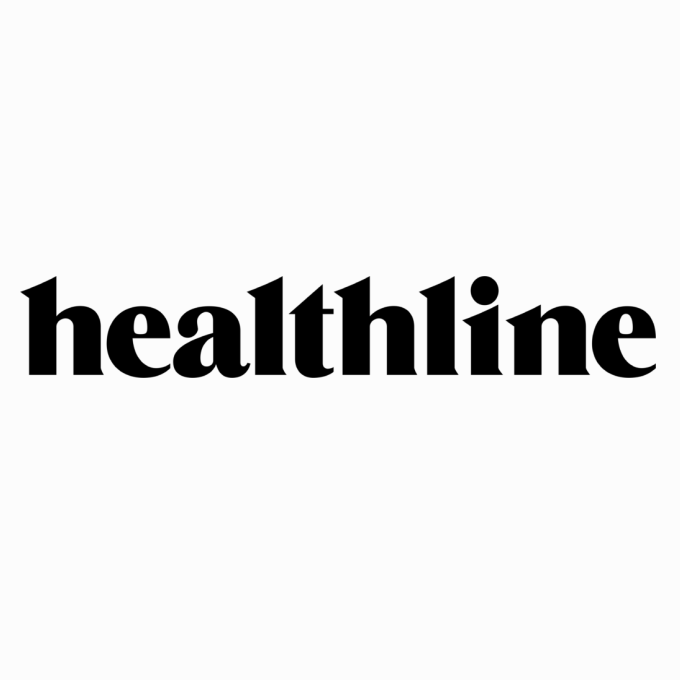
Healthline Logo Font
Fonts in UseHealthline is a website that provides health information and news, covering various topics such as fitness, nutrition, mental health, and medical conditions, with a focus on evidence-based and medically reviewed content.
It is highly likely that the Healthline wordmark was created using either ITC Grouch, or Grumpy Black 24, a headline font inspired by ITC Grouch, created by Suomi Type Foundry.